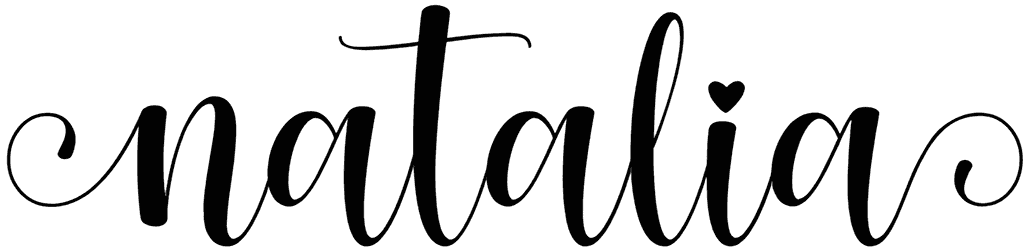
Natalia Font
Technically, a magical script font such as Natalia can be seriously considered a reliable choice for designing eye-catching graphic content, the same as gift cards, diplomas, invitations, product packaging, or social media posts.
Due to its cursive style and sophisticated texture, this masterpiece leads to a feeling of royalty, captivation, or dreaminess. If you are looking for another calligraphy font the same as this one, we strongly advise you to visit our expanding archive.